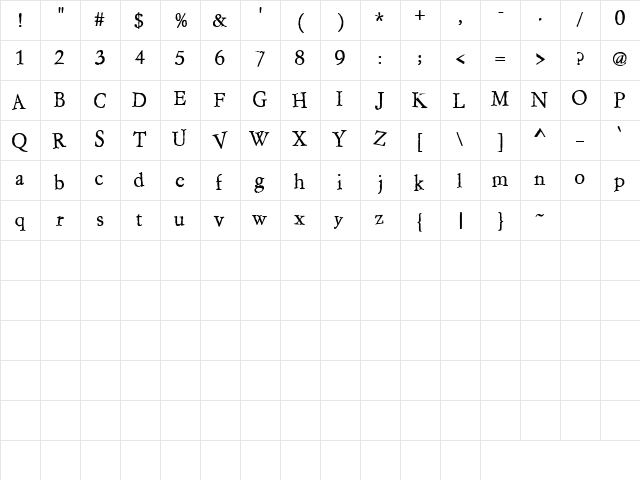
CK Constitution Regular
Design Context for CK Constitution Typeface
CK Constitution takes a measured approach to typography — its balanced proportions and neutral character make it a reliable workhorse for both digital and print work.